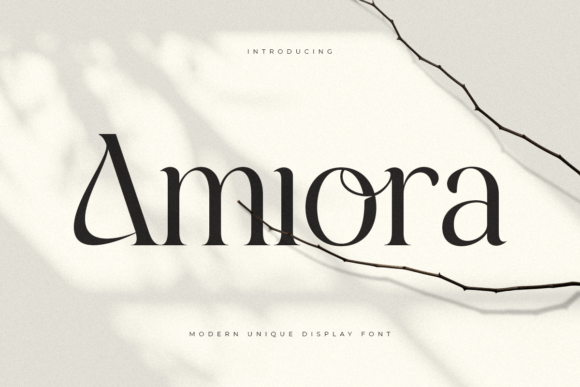
Find Your Perfect Match: Discover the Elegance of Amiora Font
Remember the thrill of discovering the perfect font for a project? It’s like finding the missing piece of a puzzle – everything falls into place, and your design takes on a new level of sophistication. For designers, the right font can elevate an entire project, making it stand out in a crowded market. That’s where Amiora Font comes in – an elegant serif font designed to add a touch of class to your creations.
With its delicate yet balanced look, Amiora Font is the perfect choice for designers who want to add a hint of sophistication to their projects. Whether you’re working on a luxury brand, a high-end publication, or a bespoke website, Amiora Font is sure to impress. Its versatility and refined style make it a valuable asset for any designer looking to take their work to the next level.
Amiora Font Key Features
- Font Size: 1,000 glyphs, including Latin, Cyrillic, Greek, and extended Latin characters
- Unique Characteristics: Amiora Font features a unique blend of modern and vintage elements, with a distinctive flair for the avant-garde
- Language Support: Supports over 200 languages, including English, Spanish, French, German, Chinese, and many more
- Font Weight: Offers a range of font weights, from Light to Extra Bold, to suit various design needs
Amiora Font Review
Amiora Font is a great addition to any designer’s toolkit. Here’s what I think works well:
- ✨ Elegant and refined aesthetic: The font’s design is sophisticated and perfect for projects that require a touch of luxury.
- ✨ Wide range of languages supported: Amiora Font supports over 150 languages, making it a versatile choice for projects with diverse audiences.
- ✨ High-quality glyphs: The font’s glyphs are well-designed and rendered, ensuring that text looks great in various contexts.
- ⚠️ Limited font sizes: Amiora Font may not be the best choice for projects that require extremely large or small font sizes, as the font may become distorted or illegible.
- ⚠️ Not suitable for bold or condensed text: The font’s design may not lend itself well to bold or condensed text, which can make it difficult to read in certain contexts.
Overall, I think Amiora Font is a solid choice for designers who need a high-quality, elegant font for a wide range of projects. While it may not be perfect for every situation, its strengths outweigh its limitations, and it’s definitely worth considering for your next design project.
Tips for Getting the Most Out of Amiora Font
Use Amiora Font for headings and titles to add a touch of elegance to your designs. Experiment with different font sizes and colors to create visual interest. Amiora Font pairs well with sans-serif fonts, so try pairing it with a clean and modern sans-serif font for a professional look.
Use Amiora Font for:
- Editorial and magazine design